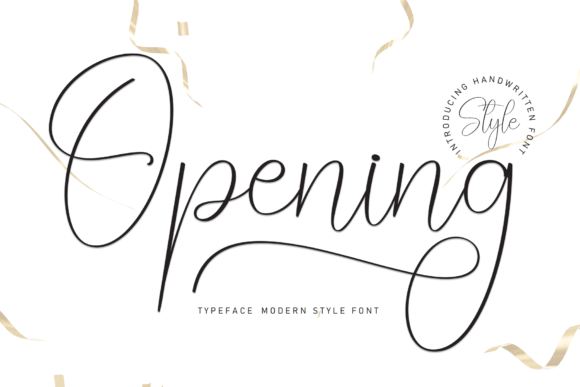
Introducing Opening Font: A Script Font That Will Capture Hearts
In a world of digital communication, where words dance across screens and pixels, there's a longing for a touch of authenticity, a hint of human connection. Meet Opening Font, a script font that's as warm and inviting as a handwritten note, as captivating as a whispered secret.
Opening Font is the brainchild of William Jhody, a creative visionary who understands the power of typography to evoke emotions and set the tone for any design. With its elegant curves and playful flourishes, Opening Font is a feast for the eyes, a font that dances across the page like a ballerina.
This font is perfect for those seeking a touch of whimsy and charm in their designs. Its sweet and friendly personality shines through in every letter, making it ideal for wedding invitations, cards, posters, and any other design that calls for a joyful touch.
But don't let its playful nature fool you - Opening Font is also incredibly versatile. Its ability to convey a range of emotions, from lightheartedness to sophistication, makes it a favorite among designers who value flexibility. Whether you're creating marketing materials, social media graphics, or simply adding a personal touch to your emails, Opening Font will elevate your designs to new heights.